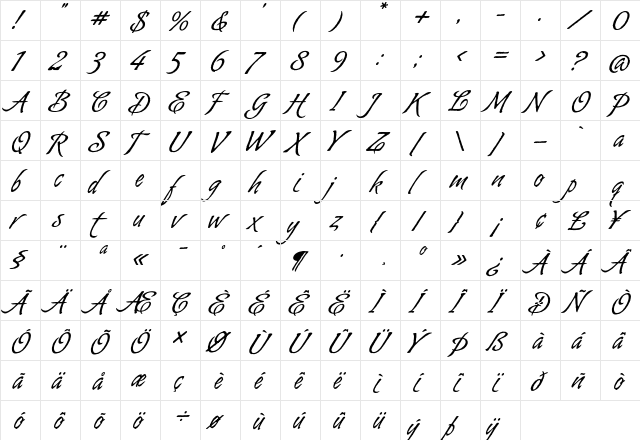
Almond Script Alt Regular
| Designer | Angel Koziupa and Alejandro Paul |
Design Context for Almond Script Alt Typeface
Almond Script Alt flows with the natural rhythm of handwritten lettering, making it ideal for designs that call for warmth and personal expression.
Font Pairing: Combine Almond Script Alt with a simple geometric sans for maximum contrast — the tension between flowing curves and clean structure is a classic typographic pairing.
Pro Tip: Use Almond Script Alt for short runs of text — names, titles, or taglines. Extended body copy in script faces tires the eye quickly.